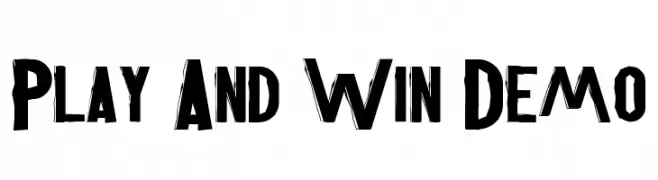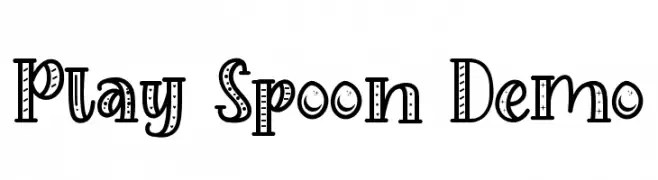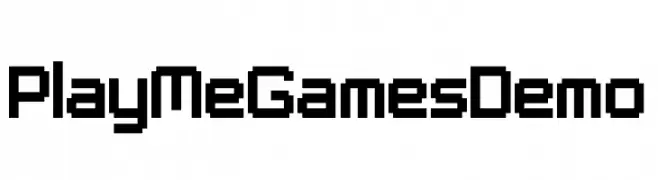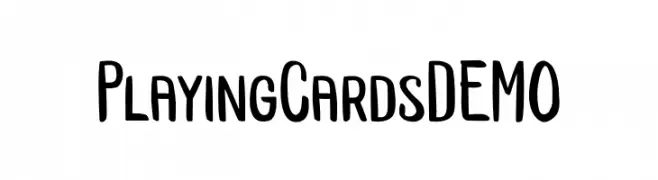
A bold, geometric font with Art Deco influences and dynamic character shapes.
A bold, geometric font with a futuristic and dynamic style.
A modern, geometric sans-serif font with clean lines and balanced proportions.
A bold, hand-drawn style font with a dynamic and energetic appearance.
A playful, decorative font with bold, patterned letters.
A playful, hand-drawn font with rounded edges and a consistent height.
A geometric, monospaced font with a modern, digital look.
A bold, pixelated font inspired by classic video game graphics.
A playful, bold font with decorative elements and a hand-drawn style.
A playful and whimsical font with bold, flowing characters and a lively aesthetic.